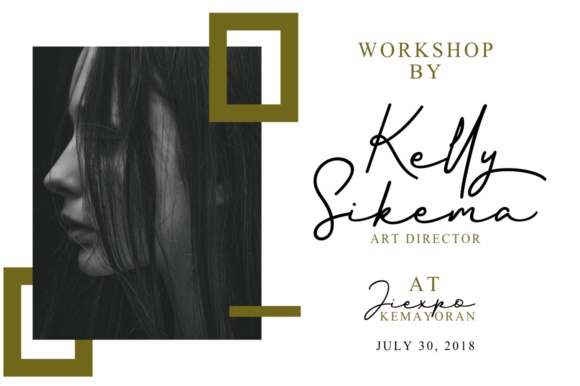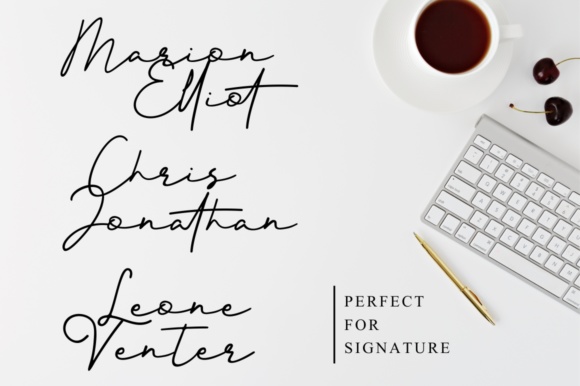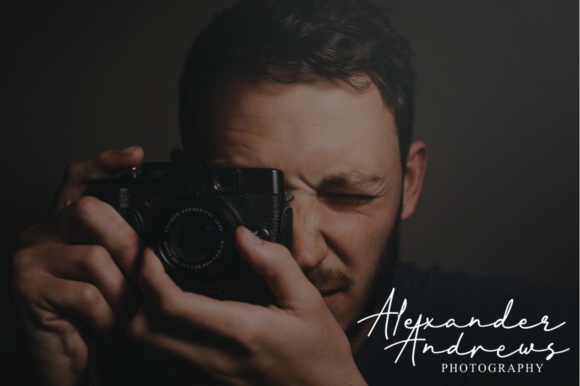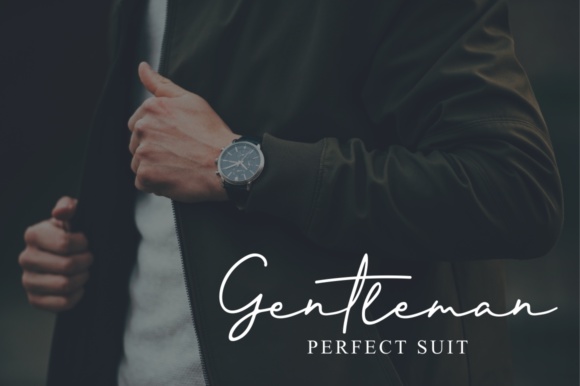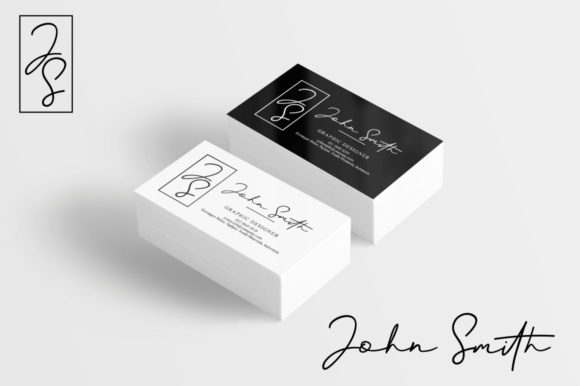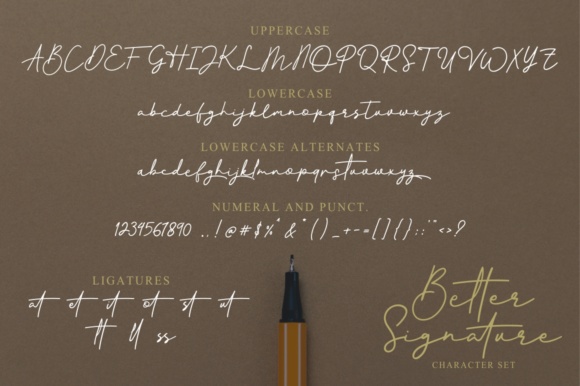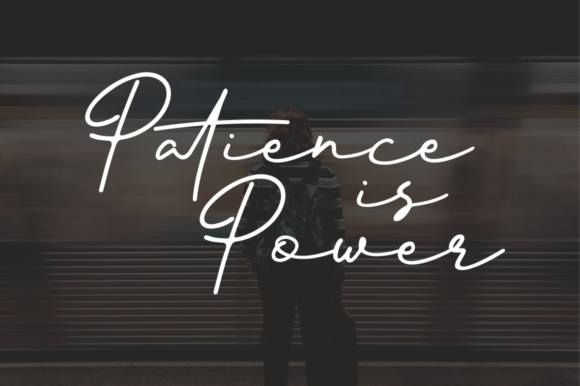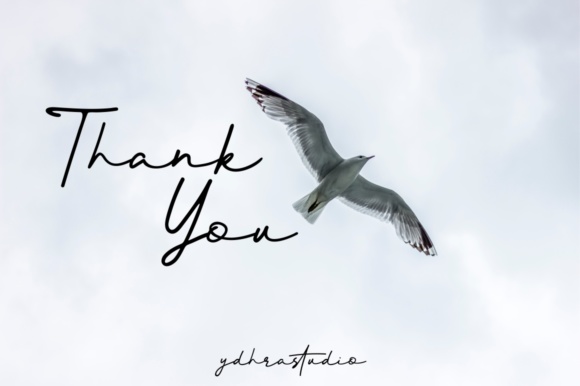
Better Signature Font
About Better Signature Font
Better Signature is a signature font that can be used for a large range of projects. It’s suitable for logos, branding, posters & headlines, magazines, book titles, business cards, advertising, fashion & apparel, and much more.